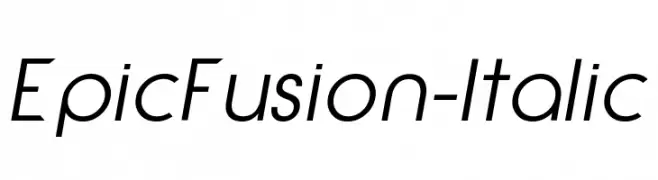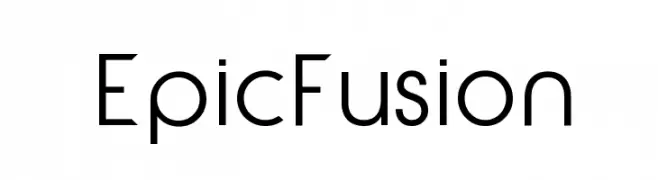
( Jeronimo - Jeroen Kant )
A modern sans-serif font with clean lines and geometric structure.
( Jeronimo - Jeroen Kant )
A sleek, modern italic font with smooth curves and clean lines.